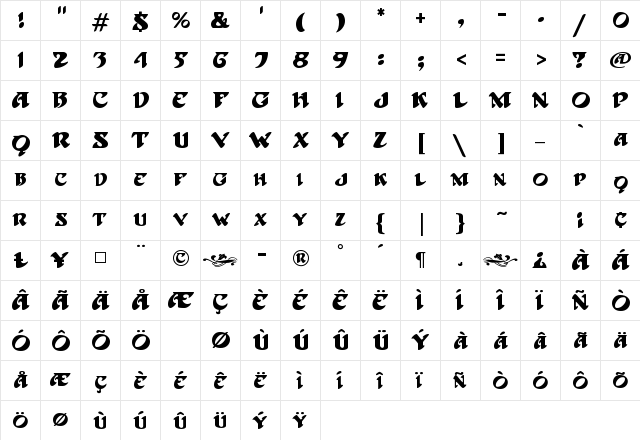
Hoffman Regular Font Preview
Hoffman Regular
Hoffman Regular Font Details
Design Context for Hoffman Typeface
Hoffman is a composed and adaptable typeface that performs quietly and consistently across a wide range of design contexts.